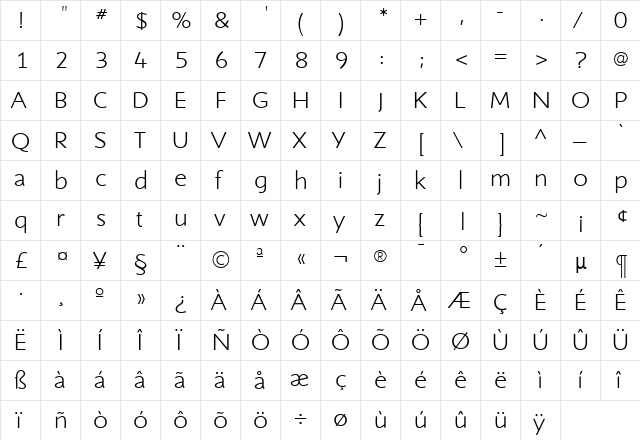
ShinnLight Regular
Design Context for ShinnLight Typeface
ShinnLight is a composed and adaptable typeface that performs quietly and consistently across a wide range of design contexts. Its slender proportions lend an understated elegance to any composition.